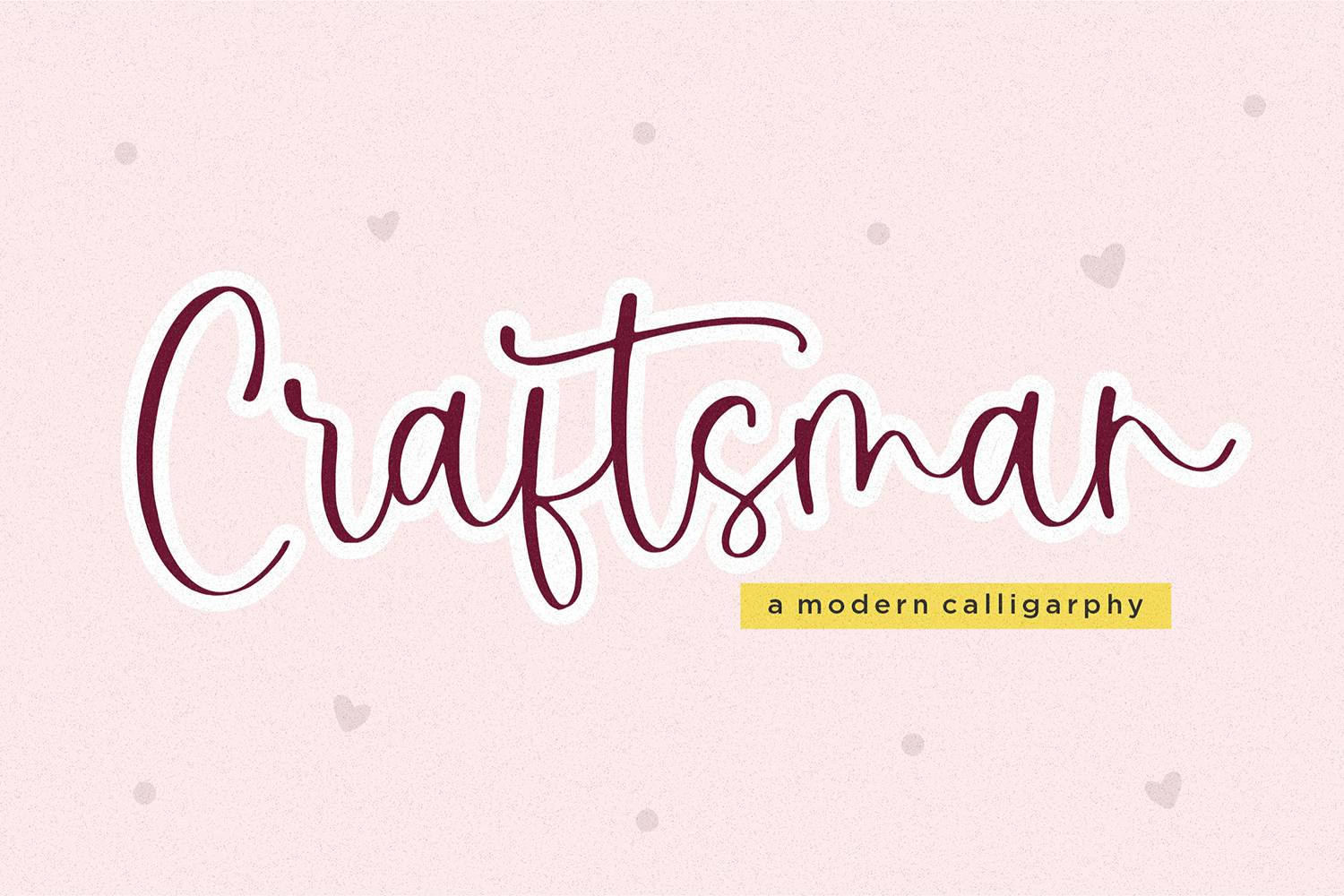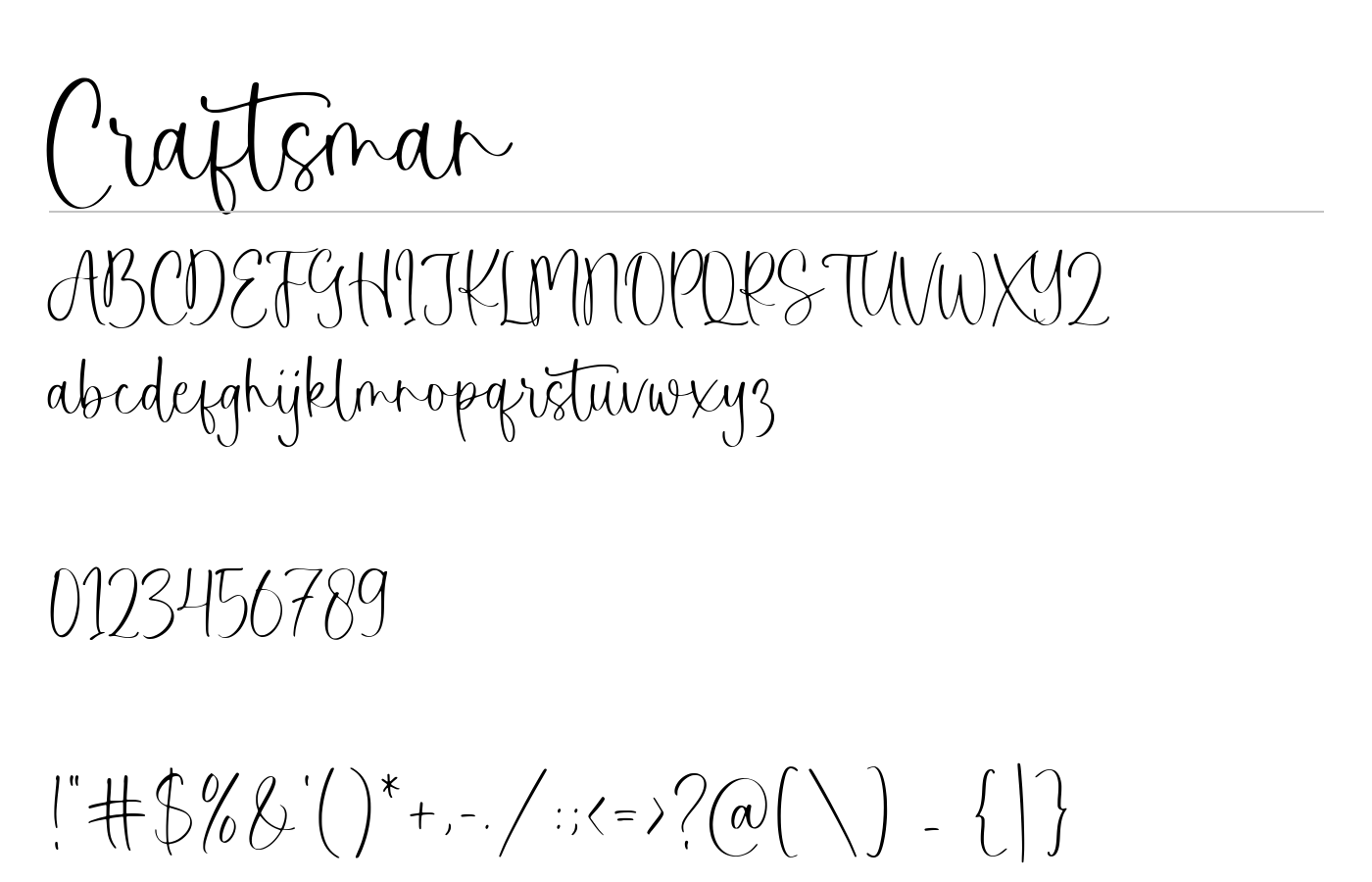
Craftsman is a delicate, hand-drawn script font with elegant, flowing strokes and a casual, handcrafted feel. Its tall, slender letterforms and playful curves make it perfect for adding a personal, charming touch to invitations, greeting cards, or feminine branding. This font works best in creative and casual contexts where a warm, artistic vibe is desired.
Craftsman Font
About Craftsman Font